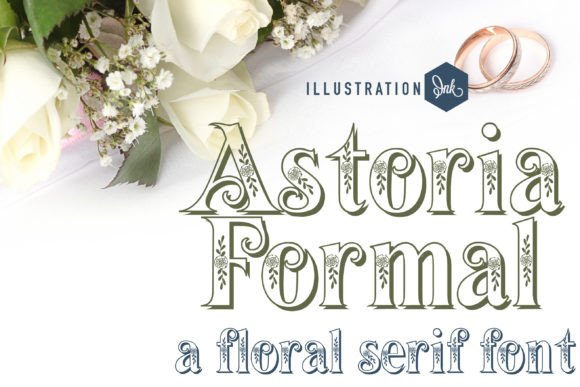
Astoria Formal Font: Elevate Your Designs with Elegance and Sophistication
When it comes to creating visually stunning designs, the right font can make all the difference. If you’re looking for a stylish and elegant font that exudes classic charm, look no further than Astoria Formal. This beautiful font is perfect for adding a touch of sophistication to your designs, whether you’re working on a fancy invitation, a luxury brand logo, or a high-end marketing campaign.
The Unique Features of Astoria Formal Font
Astoria Formal is a one-of-a-kind font that boasts a range of distinctive features. One of its most striking characteristics is its hollow interior, which gives it a delicate and refined appearance. The letters are carefully crafted to create a sense of elegance and poise, making it perfect for designs that require a high level of sophistication.
But what really sets Astoria Formal apart is its beautiful floral decorations. These intricate details add a touch of whimsy and romance to the font, making it perfect for designs that require a bit of extra flair. Whether you’re creating a wedding invitation, a product label, or a social media graphic, Astoria Formal is sure to impress.
The Benefits of Using Astoria Formal Font
So why choose Astoria Formal for your design projects? For starters, its classic look and feel make it incredibly versatile. Whether you’re working on a traditional or modern design, this font is sure to fit right in. Plus, its elegant and sophisticated appearance makes it perfect for designs that require a high level of professionalism.
Another benefit of using Astoria Formal is its ability to add a touch of luxury to your designs. The font’s hollow interior and floral decorations give it a high-end feel that’s perfect for luxury brands, high-end products, and exclusive events. By using Astoria Formal, you can instantly elevate your designs and give them a sense of sophistication and refinement.
How to Use Astoria Formal Font in Your Designs
Using Astoria Formal in your designs is easy. Here are a few tips to get you started:
- Pair it with a simple background: Astoria Formal is a bold and eye-catching font, so it’s best to pair it with a simple background that won’t compete with the text.
- Use it for headlines: The font’s elegant and sophisticated appearance makes it perfect for headlines and titles.
- Add some flair with floral decorations: The font’s floral decorations are a beautiful way to add some extra flair to your designs. Use them sparingly to add a touch of whimsy and romance.
Who Can Benefit from Using Astoria Formal Font?
Astoria Formal is a versatile font that can be used by a wide range of designers and businesses. Here are a few examples:
- Graphic designers: Whether you’re working on a client project or building your own brand, Astoria Formal is a great font to have in your toolkit.
- Luxury brands: If you’re working with a high-end brand, Astoria Formal is a great choice. Its elegant and sophisticated appearance is perfect for luxury products and services.
- Event planners: Whether you’re planning a wedding, a gala, or a corporate event, Astoria Formal is a great font to use for invitations and marketing materials.
In conclusion, Astoria Formal is a stylish and elegant font that’s perfect for designers and businesses looking to add a touch of sophistication to their designs. Its unique features, versatility, and luxurious feel make it a great choice for a wide range of design projects. Whether you’re working on a fancy invitation, a luxury brand logo, or a high-end marketing campaign, Astoria Formal is sure to impress.
- What is Astoria Formal font?
Astoria Formal is a stylish and elegant font that has a classic look. Its letters are hollow inside, and it includes beautiful floral decorations. - What is Astoria Formal font used for?